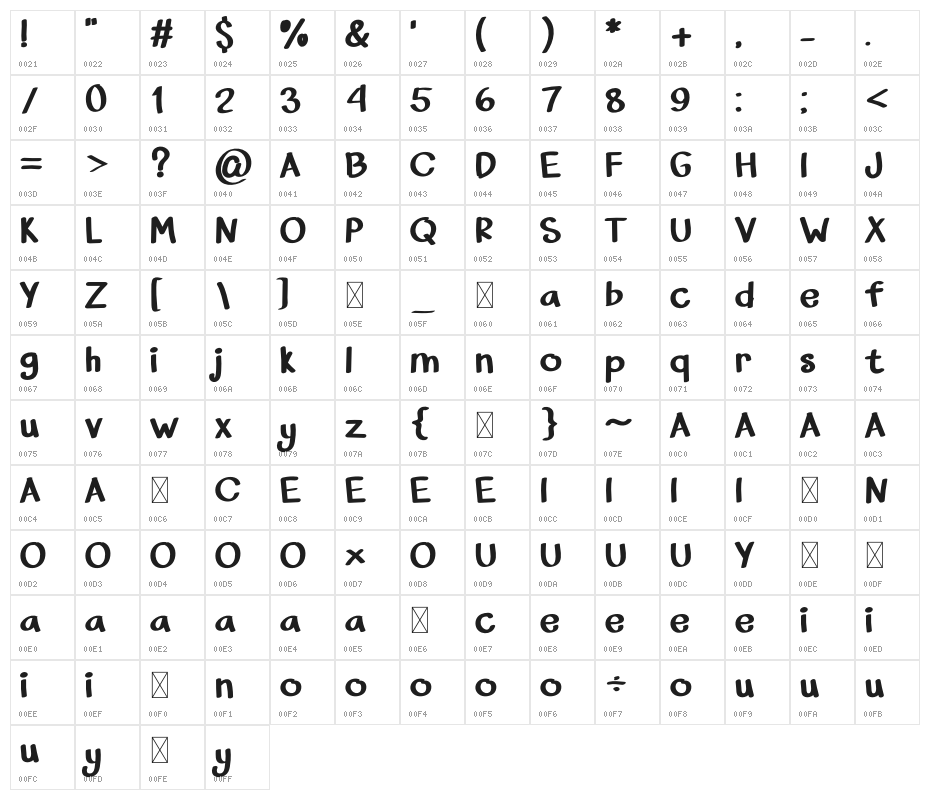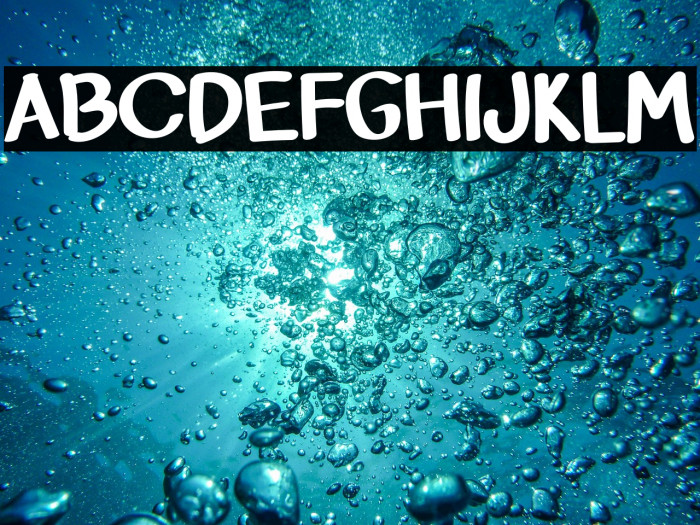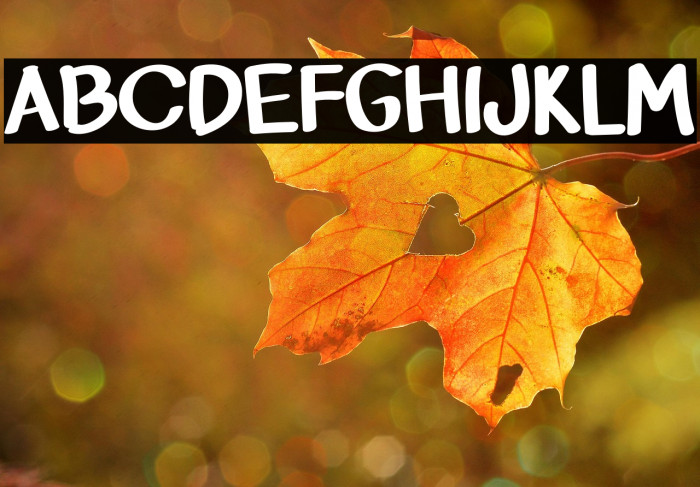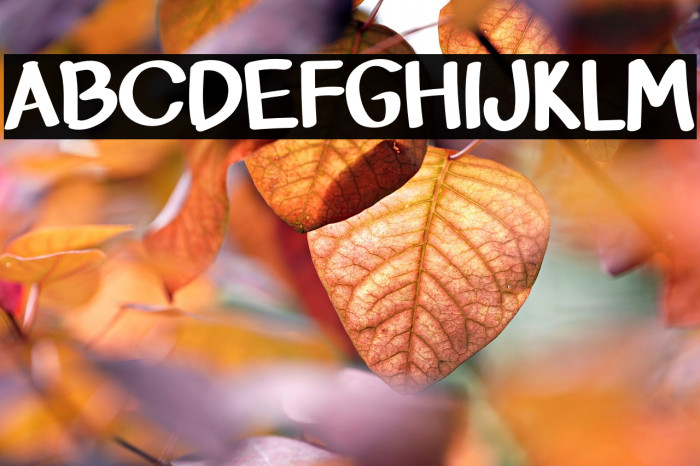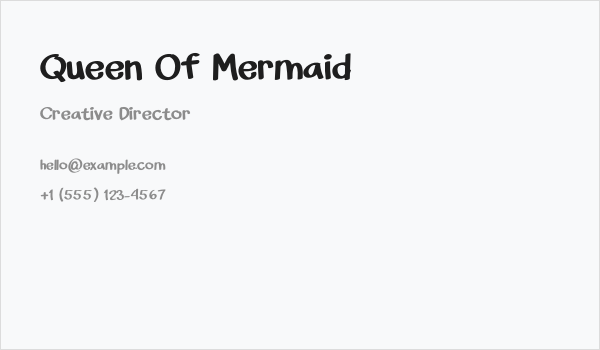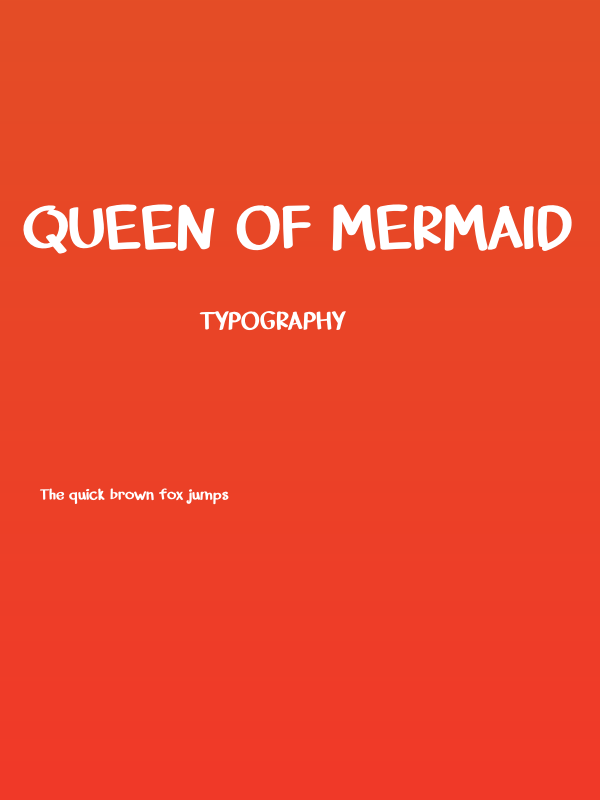
Queen Of Mermaid Font
Queen Of Mermaid Description
This playful and whimsical font features bold, rounded characters with a hand-drawn aesthetic. The uppercase and lowercase letters maintain a consistent style, with slightly irregular strokes that add a touch of charm and personality. The numbers and special characters are designed to match the overall playful theme, making them suitable for creative and informal projects. The font's thick strokes and rounded edges give it a friendly and approachable feel, perfect for capturing attention in a fun and engaging way.
| Proposed Projects | Ideal for children's books, playful branding, greeting cards, and creative posters. |